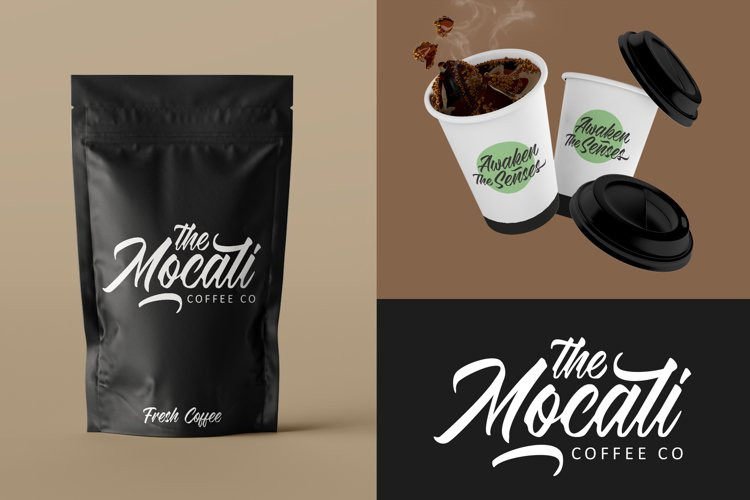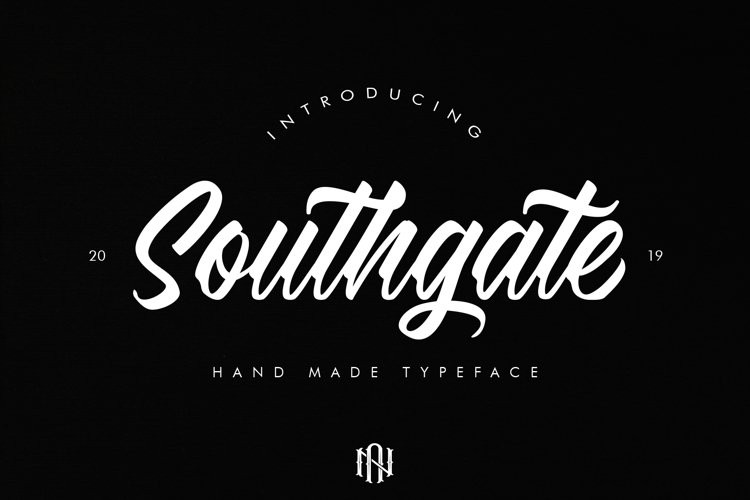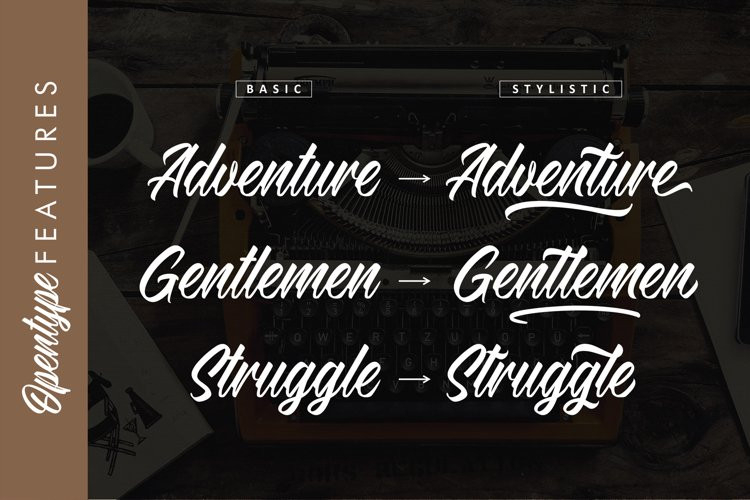
Southgate Font
Southgate FontSouthgate is a handmade typeface, with a strong touch of every single
curve. Southgate has a variety of alternate characters and bonus swash, making
this font perfect for your design project. It is suitable for use as logo,
t-shirts/apparel, branding, business cards, packaging, posters, printed quotes,
wedding invitations etc.